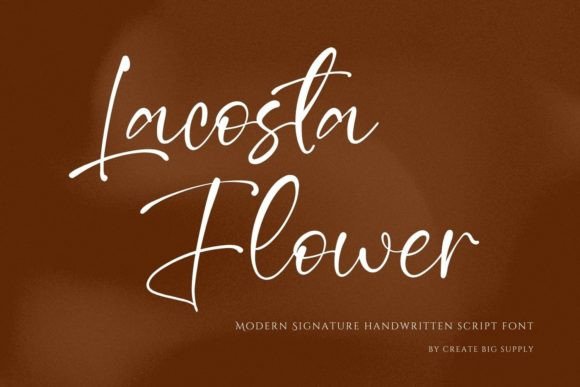
Welcome to the world of Lacosta Flower, the signature handwriting script font that will transform your projects into works of art. Experience the elegance and authenticity of handwritten lettering, seamlessly integrated into the digital realm.
With Lacosta Flower, your designs will radiate a personal touch, capturing the essence of handwritten notes and heartfelt messages. Elevate your branding, invitations, social media posts, or any creative endeavor with this enchanting font.
Immerse yourself in the beauty of its graceful strokes, reminiscent of a skilled calligrapher's penmanship. Lacosta Flower's organic flow and harmonious curves add a touch of sophistication and timeless charm to your creations.
Unleash your creativity with the extensive features of Lacosta Flower. Choose from a comprehensive selection of uppercase and lowercase letters, numbers, and punctuation marks. Explore the nuances of multilingual support, allowing you to connect with diverse audiences across borders.
Dive into the world of ligatures and PUA encoding, opening up endless possibilities for customization and artistic expression. Experiment with stunning letter combinations and flourishes, adding a touch of flair and individuality to your designs.
Lacosta Flower is more than just a font; it's an experience. Embrace the art of handwritten lettering and infuse your projects with the warmth and authenticity of personal expression.
Don't settle for ordinary fonts. Embrace the extraordinary with Lacosta Flower Signature Handwriting Script Font. Its versatility knows no bounds, making it the perfect choice for logos, branding, invitations, social media, and countless other creative projects.